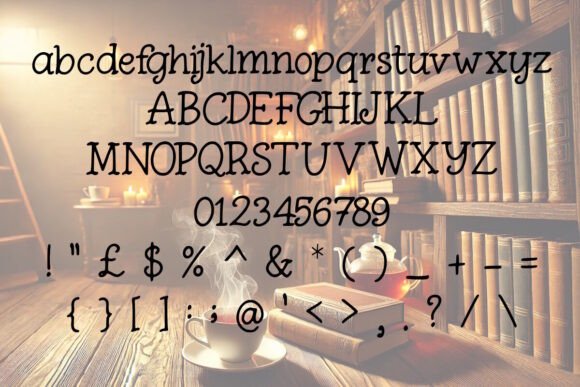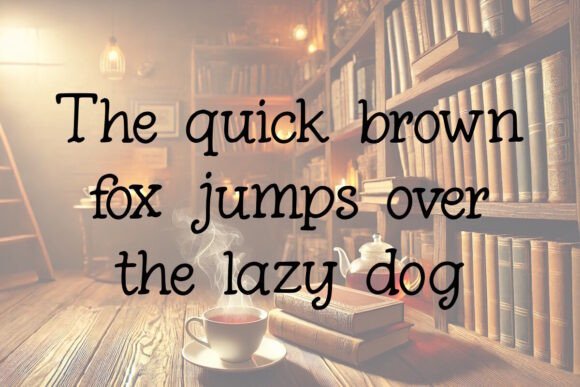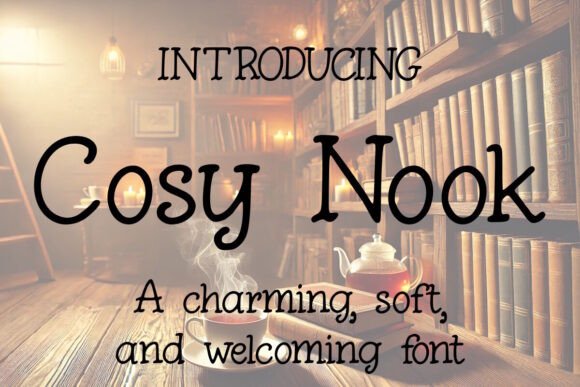
Cosy Nook Font: The Ultimate Guide to a Charming, Handwritten Typeface
Are you a designer, crafty enthusiast, or simply someone who appreciates the beauty of handwritten typography? Look no further than the Cosy Nook font, a charming, soft, and welcoming typeface that’s perfect for adding a touch of warmth and nostalgia to your projects. In this comprehensive guide, we’ll dive into the world of Cosy Nook, exploring its unique features, uses, and benefits.
A Font that Feels like Home
Cosy Nook is a handwritten font that exudes a sense of comfort and coziness, making it perfect for designs that require a personal touch. Its curved edges and delicate flow evoke a sense of nostalgia, transporting you to a world of storybook pages, quaint café menus, and heartfelt notes. Whether you’re designing for stationery, branding, or simply want to add a touch of warmth to your digital projects, Cosy Nook is the perfect choice.
Key Features of Cosy Nook Font
So, what makes Cosy Nook so special? Here are some of its key features:
• Handwritten touch: Cosy Nook has a genuine, handwritten feel that adds a personal touch to your designs.
• Curved edges: The font’s curved edges give it a soft, rounded appearance that’s both soothing and inviting.
• Delicate flow: The delicate flow of Cosy Nook’s letters creates a sense of movement and fluidity, making it perfect for designs that require a sense of dynamism.
• Warm and nostalgic: Cosy Nook’s unique blend of curves and lines creates a warm, nostalgic charm that’s hard to resist.
Uses for Cosy Nook Font
Cosy Nook is a versatile font that can be used in a variety of design projects, including:
• Stationery: Add a touch of warmth and personality to your stationery designs, such as greeting cards, invitations, and letters.
• Branding: Use Cosy Nook to create a unique and memorable brand identity that’s both friendly and approachable.
• Cosy aesthetics: Create designs that evoke a sense of coziness and warmth, such as social media graphics, blog posts, and website headers.
• Storybook pages: Bring your storybook pages to life with Cosy Nook’s charming, handwritten touch.
• Café menus: Add a touch of warmth and hospitality to your café menus with Cosy Nook’s delicate flow and curved edges.
Benefits of Using Cosy Nook Font
So, why choose Cosy Nook over other fonts? Here are some benefits of using this charming typeface:
• Unique and memorable: Cosy Nook’s distinctive style ensures that your designs will stand out from the crowd.
• Emotional connection: The font’s warm, nostalgic charm creates an emotional connection with your audience, making your designs more relatable and engaging.
• Versatile: Cosy Nook can be used in a variety of design projects, from stationery to branding and digital designs.
• Easily readable: Despite its handwritten nature, Cosy Nook is surprisingly easy to read, making it perfect for body text and headings.
Tips for Using Cosy Nook Font
To get the most out of Cosy Nook, here are some tips to keep in mind:
• Use it sparingly: While Cosy Nook is a beautiful font, it can be overwhelming if used excessively. Use it sparingly to add emphasis and create visual interest.
• Pair it with contrasting fonts: Pair Cosy Nook with contrasting fonts to create visual interest and add depth to your designs.
• Experiment with colors: Cosy Nook looks beautiful in a range of colors, from soft pastels to rich jewel tones. Experiment with different colors to find the perfect match for your design.
In conclusion, Cosy Nook is a charming, soft, and welcoming font that’s perfect for designers, crafty enthusiasts, and anyone who appreciates the beauty of handwritten typography. With its curved edges, delicate flow, and warm, nostalgic charm, Cosy Nook brings a touch of comfort and creativity to any project. Whether you’re designing for stationery, branding, or simply want to add a touch of warmth to your digital projects, Cosy Nook is the perfect choice.